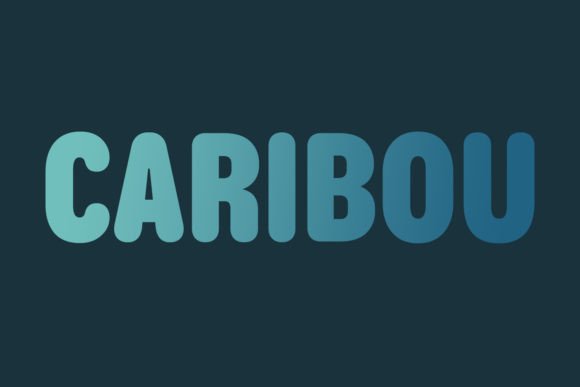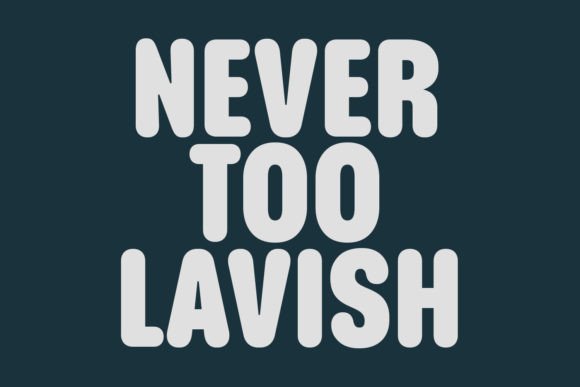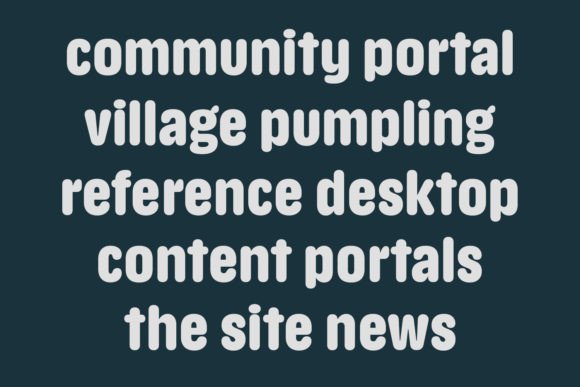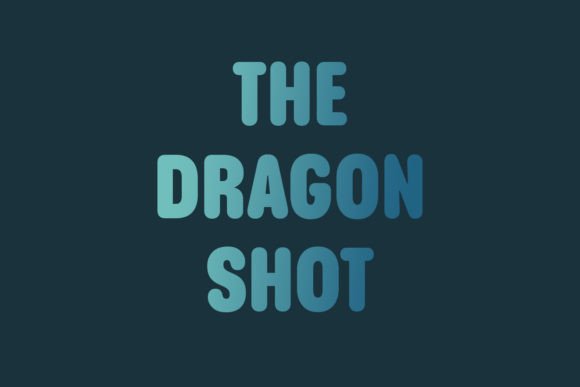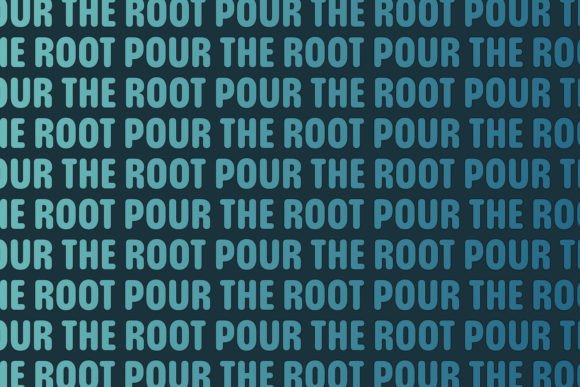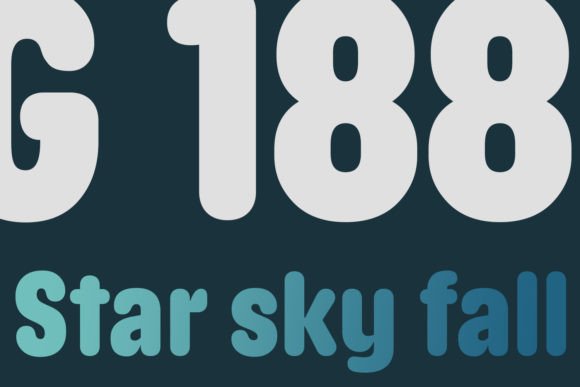
The Dargotta Font: A Modern Sans Serif Delight for Creative Projects
I’ll never forget the time I was working on a branding project for a trendy new coffee shop. My client was adamant that the font had to be modern, fun, and highly legible. I scoured the internet for hours, but nothing seemed quite right. That was until I stumbled upon the Dargotta font. **It’s been a game-changer for my design work**, and I’m excited to share my experience with you.
An Honest Review of Dargotta
- ✨ Modern and fresh design that’s perfect for creative projects
- 💡 Extensive character set, including OpenType features and stylistic alternates
- 🎉 Fun and playful vibe that’s sure to elevate your designs
While Dargotta is an excellent font, there are a few things to keep in mind:
- 🤔 Some users may find the font a bit too condensed for certain applications
- ⚠️ Limited availability of Cyrillic and non-Latin scripts
The Backstory of Dargotta
Dargotta was designed by a team of typographers who wanted to create a font that was both modern and fun. Inspired by the latest design trends and a passion for typography, they crafted a font that’s perfect for creative projects. **The result is a font that’s both stylish and highly legible**, making it an excellent choice for designers, crafters, and creative hobbyists.
Q: What is the Dargotta font?
A: Dargotta is a modern and fun sans serif font that’s perfect for creative projects.
Q: What are the OpenType features of Dargotta?
A: Dargotta includes a range of OpenType features, including stylistic alternates, ligatures, and more.
Q: Is Dargotta suitable for body text?
A: While Dargotta is highly legible, it may be a bit too condensed for long blocks of body text. However, it’s perfect for headlines, titles, and short paragraphs.